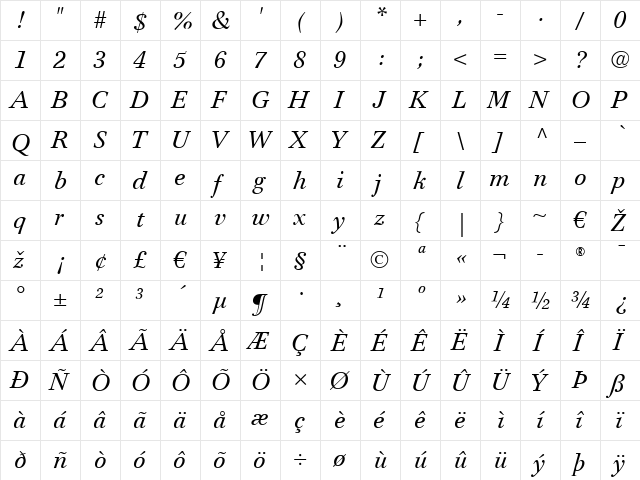
Iridium LT Regular Italic
| Designer | Adrian Frutiger |
Design Context for Iridium LT Regular Typeface
Iridium LT Regular is a composed and adaptable typeface that performs quietly and consistently across a wide range of design contexts. The slanted form adds forward momentum and visual energy. The delicate stroke weight brings airiness and refinement to layouts.
Pro Tip: Use Iridium LT Regular for emphasis, pull quotes, and subheadings where its slanted energy can add rhythm to the layout.